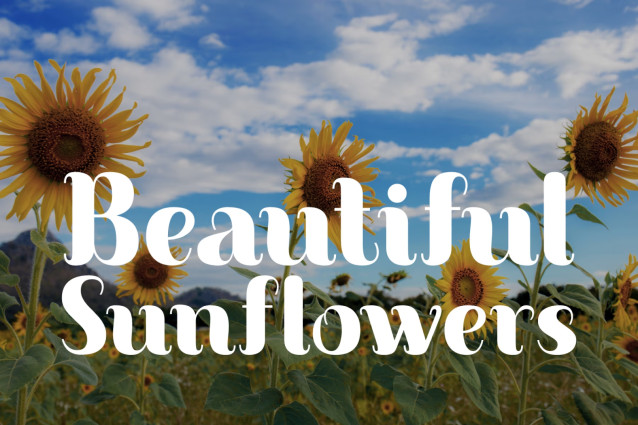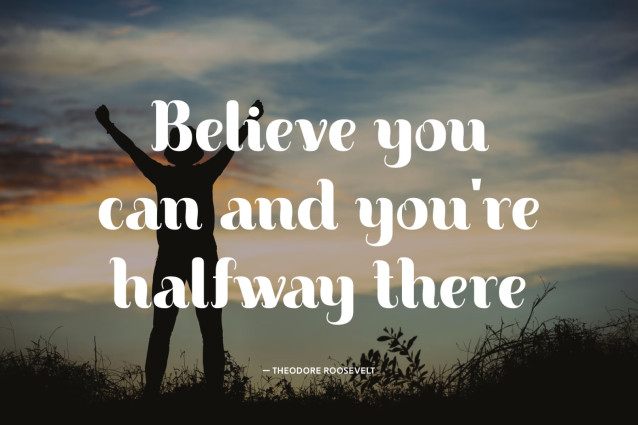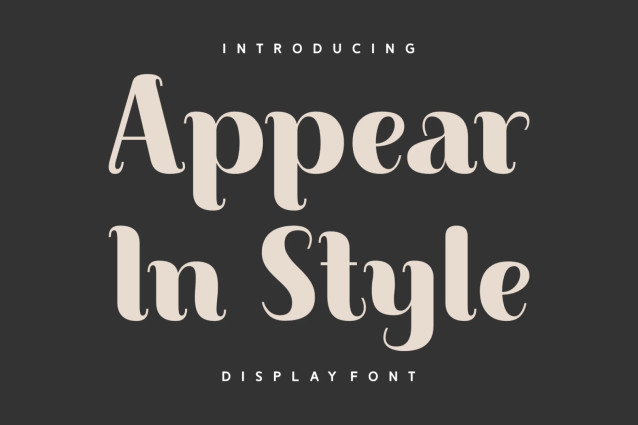
Appear In Style Font
Introducing “Appear In Style,” a font that embodies elegance, modernity, and authenticity. With its clean and smooth lines, this display font makes a striking impact across multiple platforms— from photography to apparel. It’s more than a simple serif; it’s a versatile typeface that functions flawlessly in branding applications, book covers, magazines, and packaging. Its refined style enhances greeting cards, logotypes, and quotes, making it an essential tool in your design arsenal for trend-setting projects.
The effortless sophistication of “Appear In Style” is not only visually appealing, but it also supports multiple languages, transforming your work into a global masterpiece. The “Appear In Style” font – amplified elegance and versatility at your fingertips.